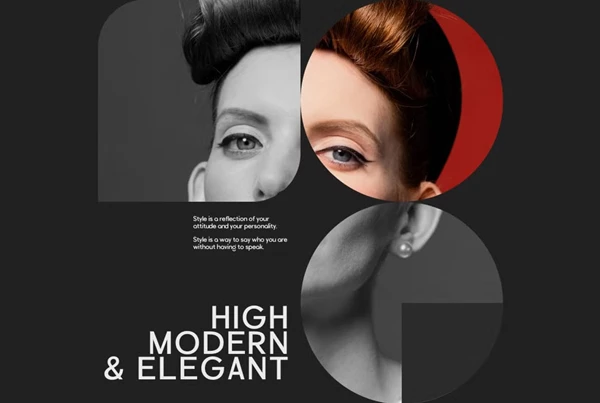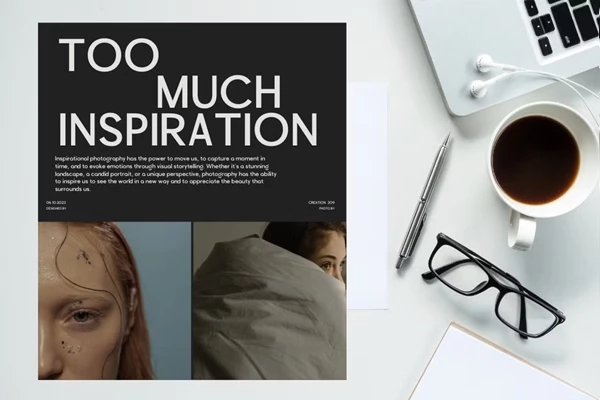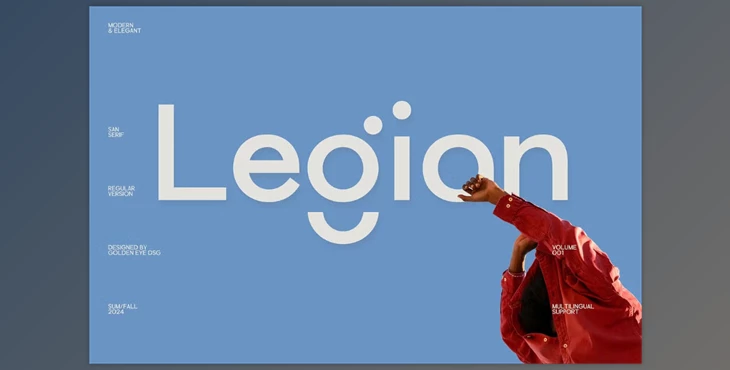
Legian - Modern Sans Font:
Legian is a contemporary sans serif typeface that adds elegance and versatility to any designing project. It is compatible with branding, logos, editorial layouts, invitations, and product packaging due to its clean lines and style. The font is sophisticated yet functional and thus, suitable for both print and digital work.
Some great features of Legian - Modern Sans Font:
- Modern & Elegant Style: For modern design, the font offers a sleek and clean appearance.
- Versatile Branding: The font is ideal for various purposes, including magazines and logos pa, packaging, and invitations.
- Professional Appeal: With Legian around, visual identity is enhanced to have a refined and polished outlook.